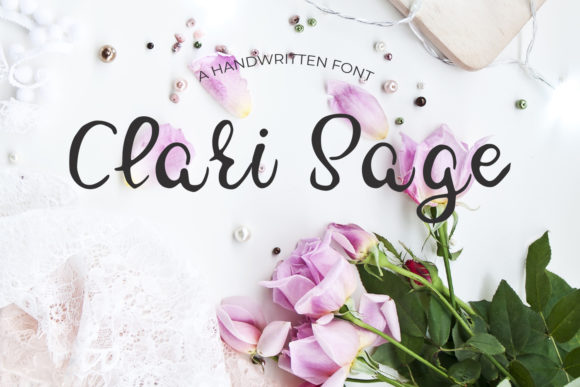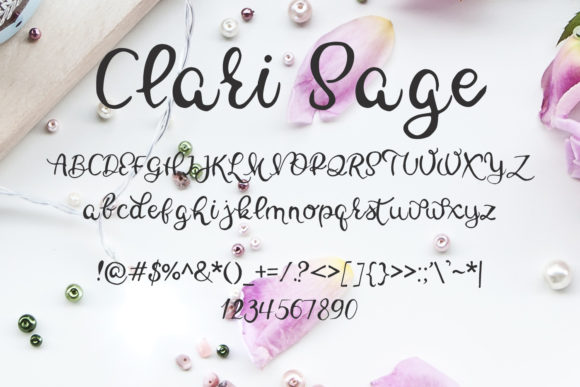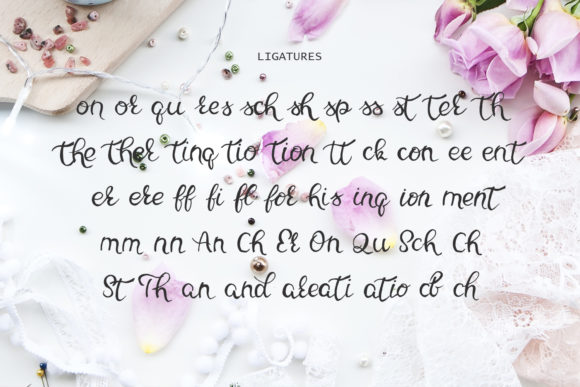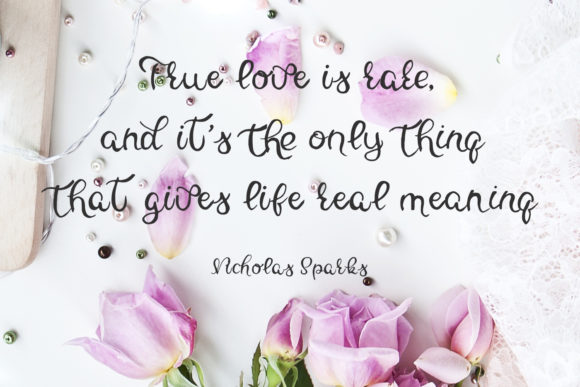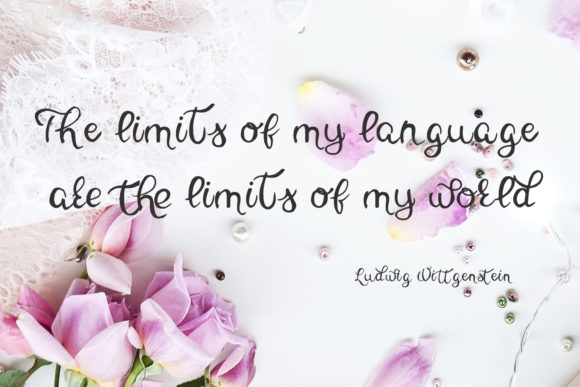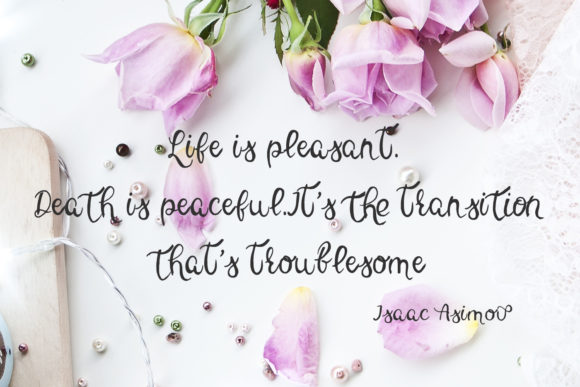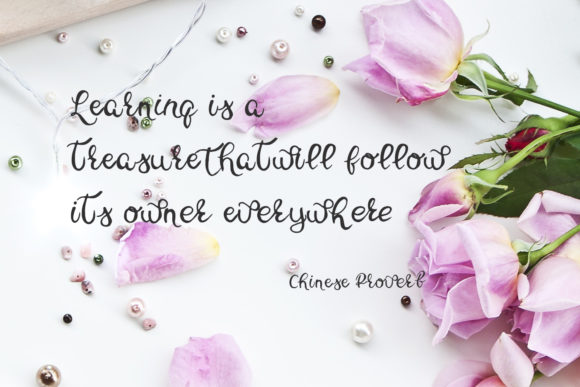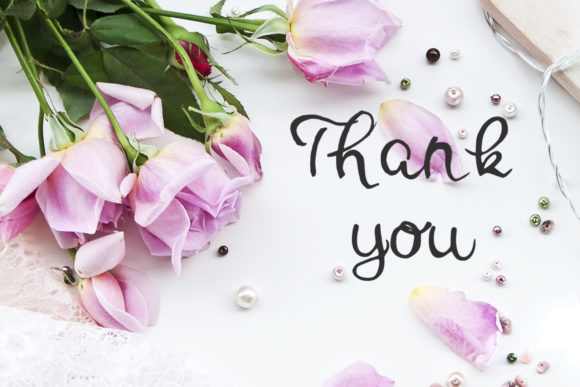
Clary Sage Font
About Clary Sage Font
Clary Sage is a delicate and elegant handwritten font. Its distinct and well rounded letters make this font a masterpiece. Fall in love with its incredibly versatile style and use it to create spectacular designs!